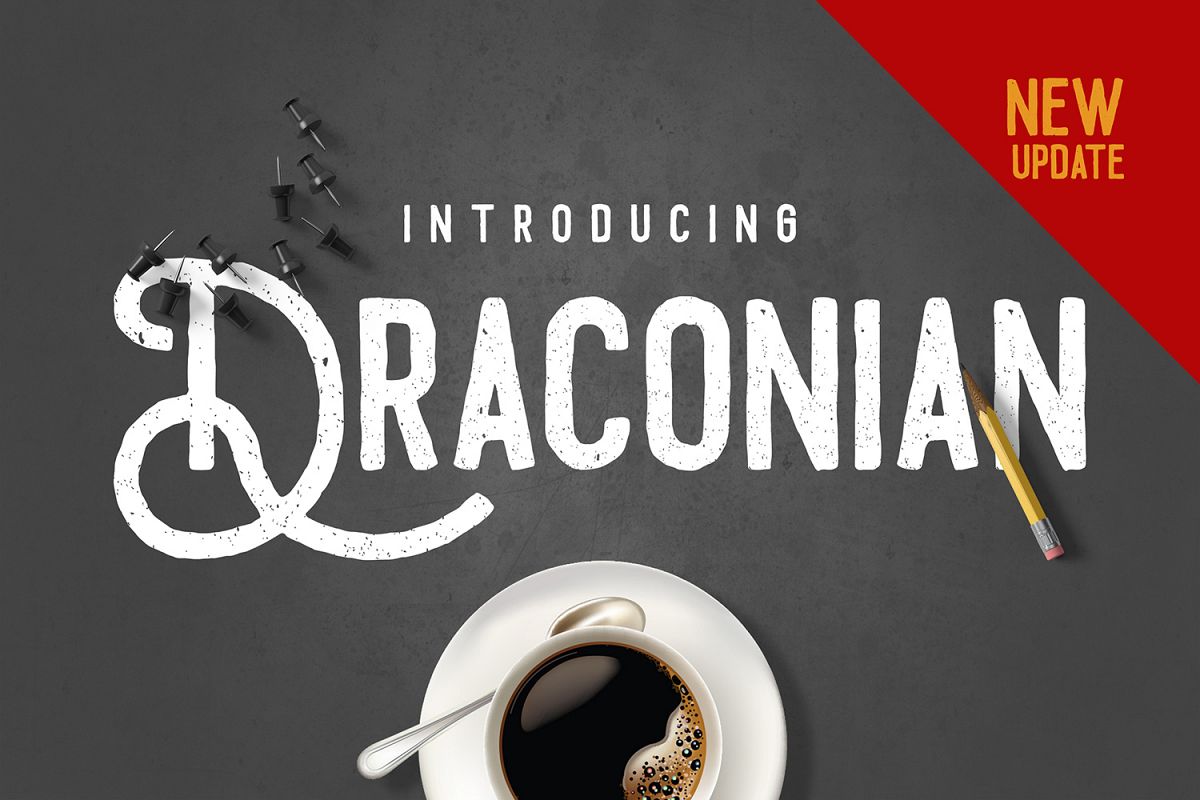
Draconian
Draconian Gradient
Introducing
Draconian - NEW UPDATE with vintage american style font with cool character! Draconian perfect for poster design, book covers, merchandise, fashion campaigns, newsletters, branding, advertising, magazines, greeting cards, album covers, and quote designs and more.